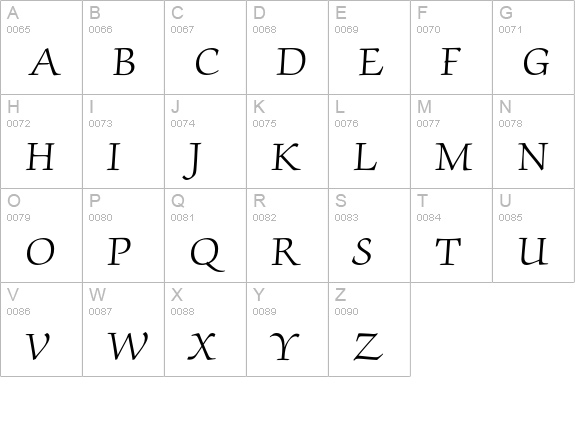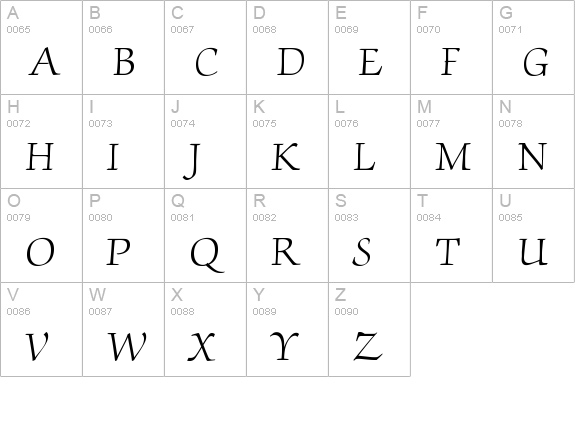
ZapfChanceryEF-Light is a refined, elegant variant in the ZapfChanceryEF typeface family \xE2\x80\x94 well suited to elegant body text, refined sub-headings, and luxury branding.
ZapfChanceryEF-Light is an elegant and sophisticated font that exudes a sense of refinement and grace. Its delicate strokes and flowing lines give it a timeless and classic appeal, making it perfect for projects that require a touch of sophistication. The light weight of this font adds a subtle and airy quality to any design, making it versatile and easy to work with. What sets ZapfChanceryEF-Light apart is not only its beauty, but also the fact that it is available for free download at FontsMarket.com. This means that you can enhance your projects with this exquisite font without any cost, making it accessible to all designers and creatives. Whether you are working on invitations, branding materials, or any other design project, ZapfChanceryEF-Light is sure to elevate your work with its timeless charm and elegance. Download it today and see the difference it can make in your designs.